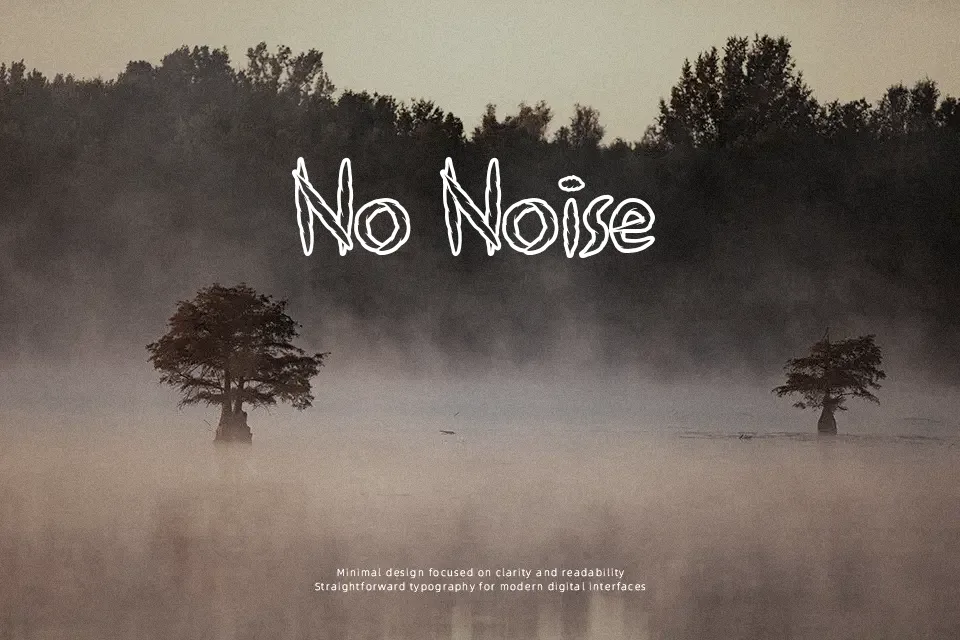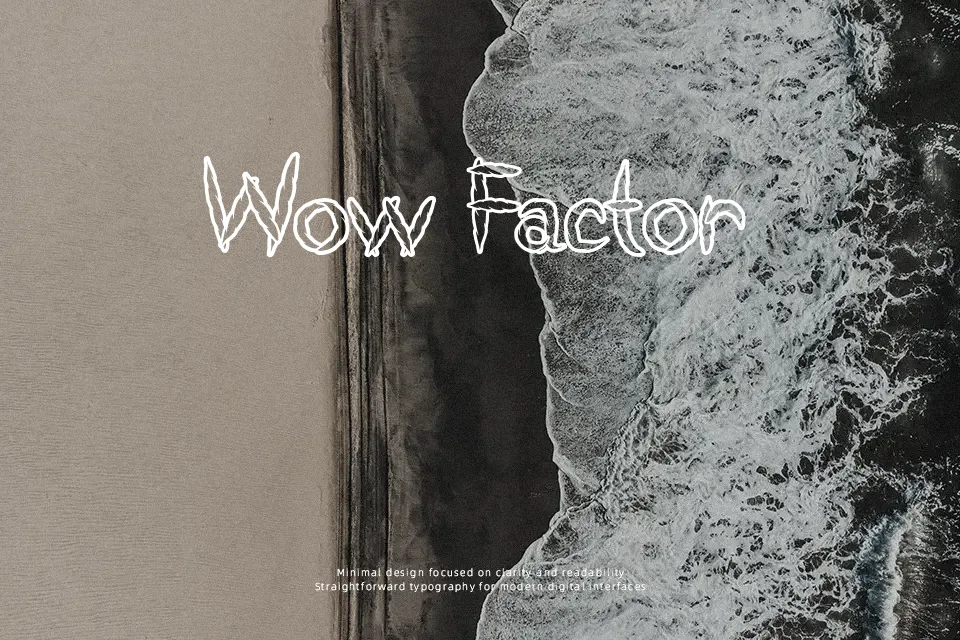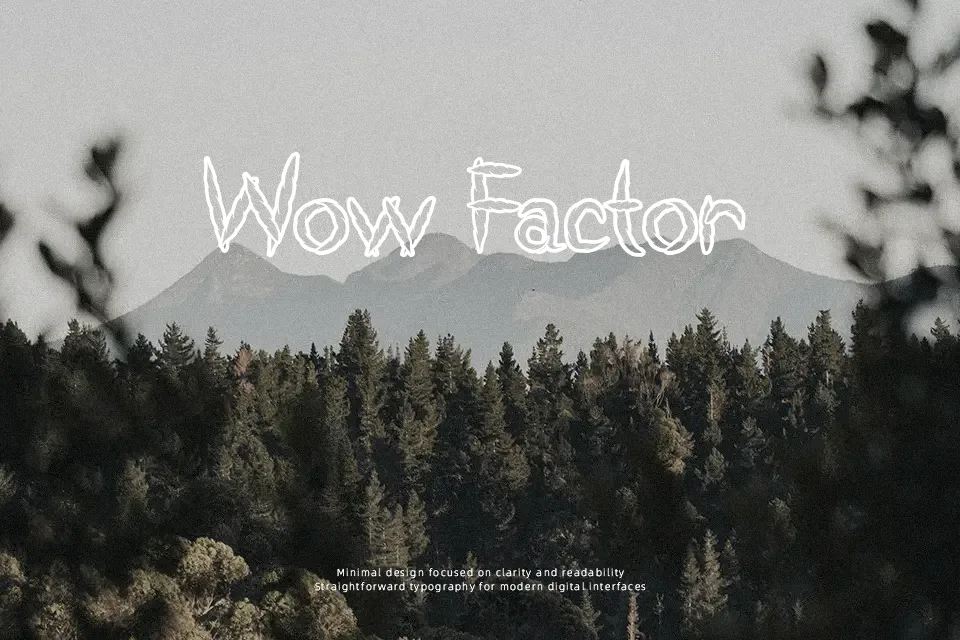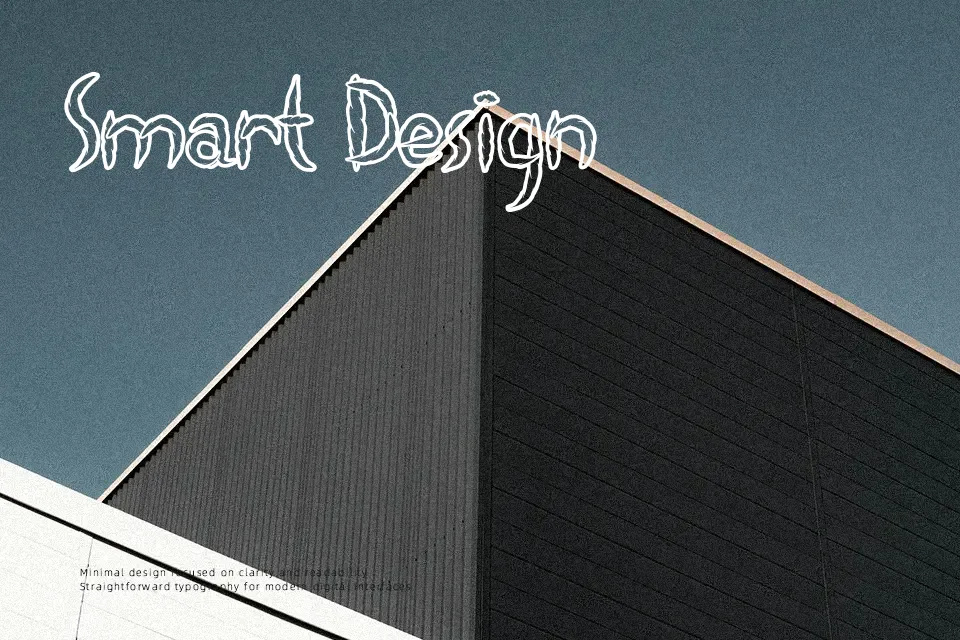
Spliffs Font
Spliffs Font features an intricate visual structure composed of hand-drawn rolled cigarettes, twisted filter ends, and glowing ash tips that shape each individual character. The thick strokes and expressive contours create a textured, heavy aesthetic across uppercase and lowercase sets, accompanied by deliberate, generous spacing to prevent adjacent glyphs from colliding. While the design delivers remarkable impact on festival banners, novelty packaging, and prominent apparel graphics, the dense decorative linework quickly loses definition at smaller scales. The typeface performs effectively when isolated as a dominant headline, but intricate silhouettes make it impractical for body copy or continuous reading.
Best For: novelty apparel graphics,thematic festival posters,dispensary packaging headers,counterculture event banners
Not Ideal For: long paragraph text,corporate branding,mobile interface typography,dense editorial columns
Perfect for advertising, branding, and headline, with a artistic and cartoon style.